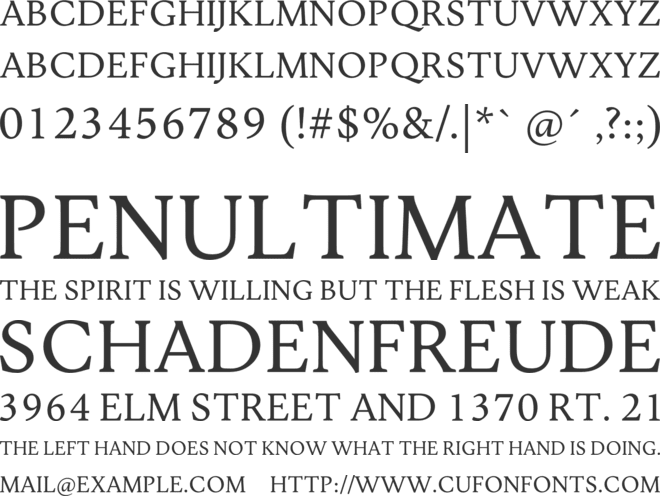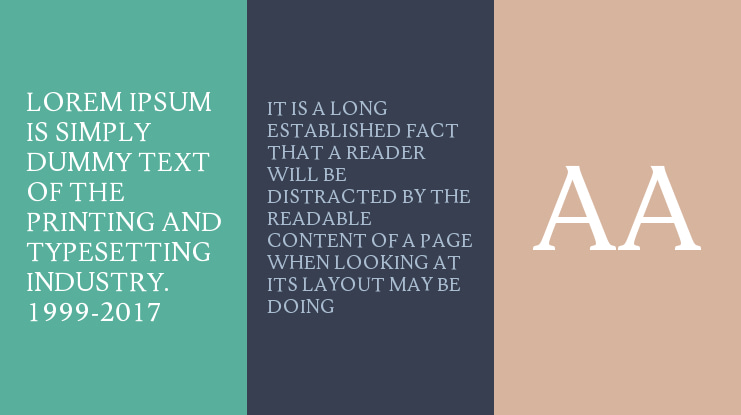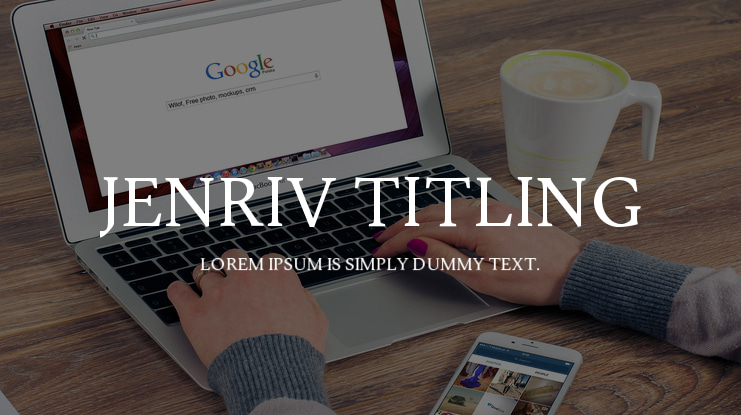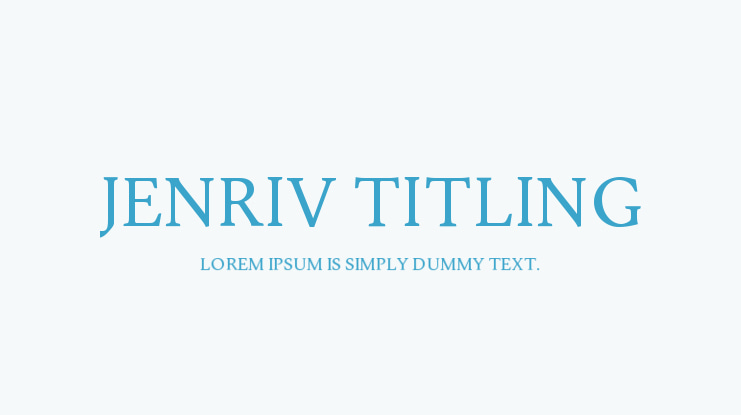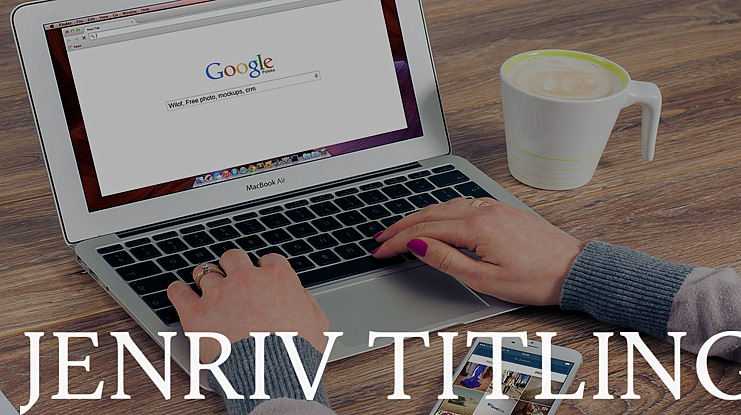
Jenriv Titling Font Family
Linh Nguyen
This font is Titling version, which contains all-caps letters.
It also supports extended Latin languages, advanced symbols.